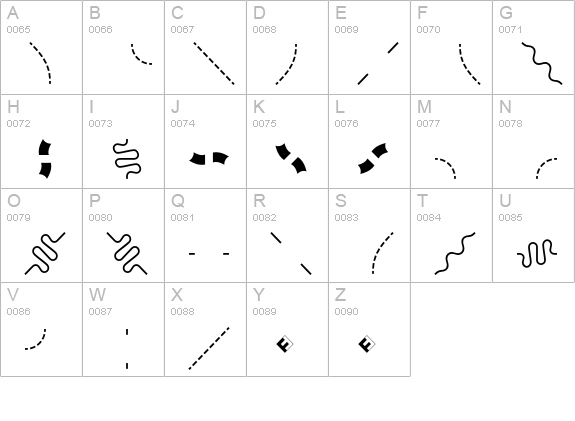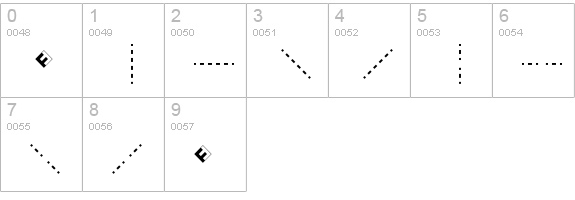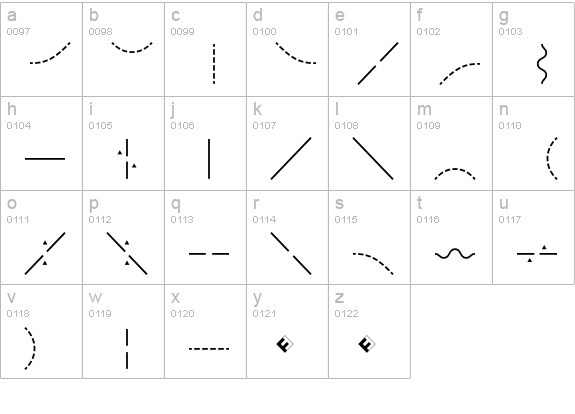
Routes B Two font is a unique and modern typeface that combines sleek lines with a touch of elegance. This versatile font is perfect for a wide range of design projects, from branding to editorial design. Its clean and geometric shapes give a contemporary feel to any text, making it stand out in any layout. What makes Routes B Two font even more appealing is that it is available for free download at FontsMarket.com. This means you can easily access this stylish font without any cost, making it a great choice for both personal and commercial projects. Whether you're designing a website, creating a poster, or working on a logo, Routes B Two font is sure to add a touch of sophistication to your work. Don't miss out on this fantastic opportunity to enhance your designs with this beautiful and free font.